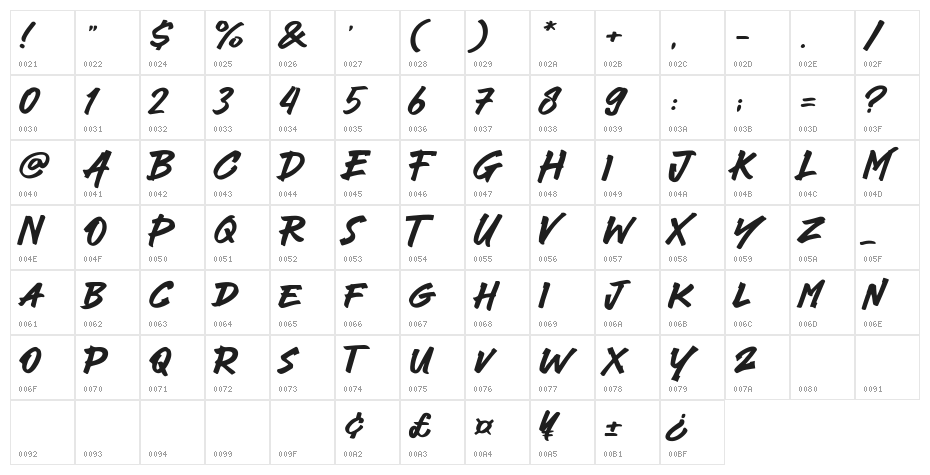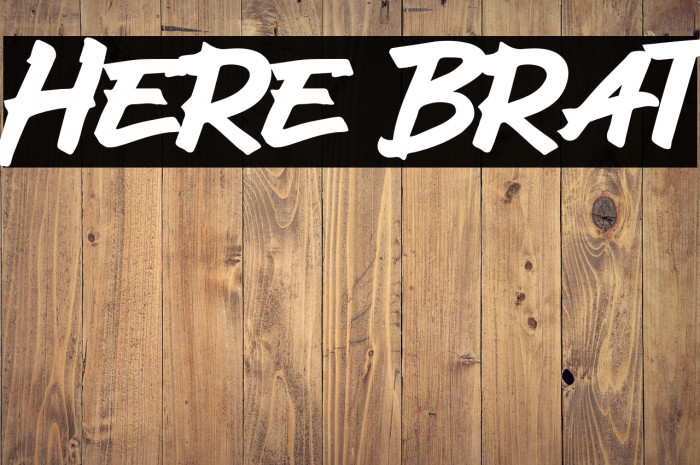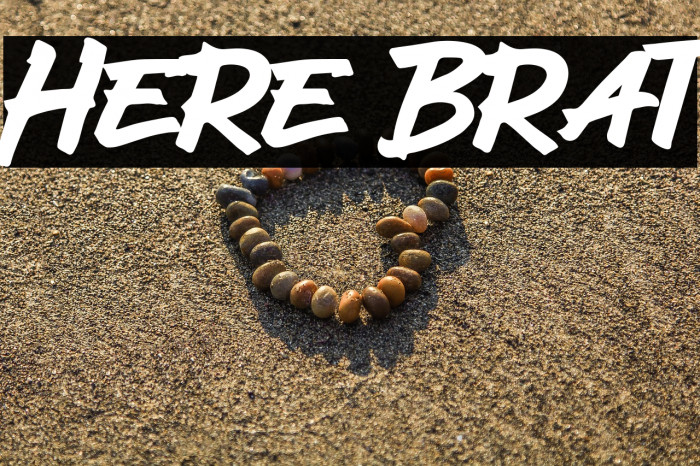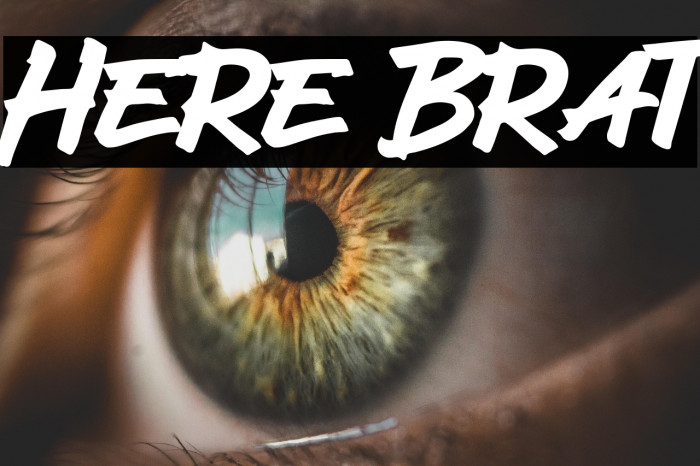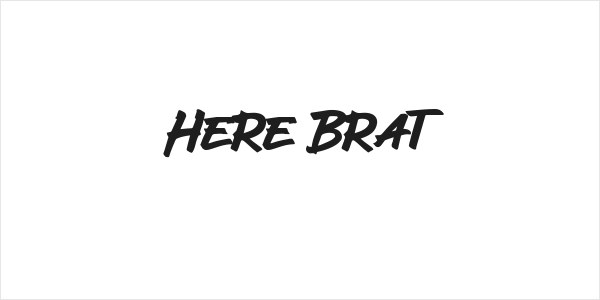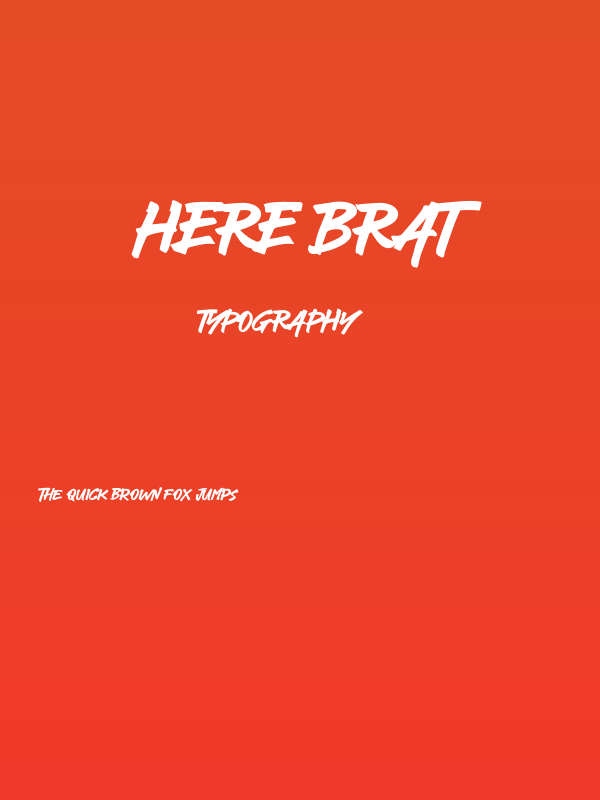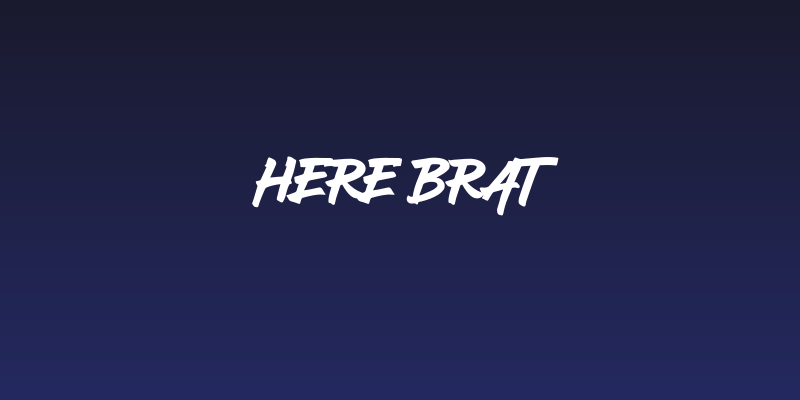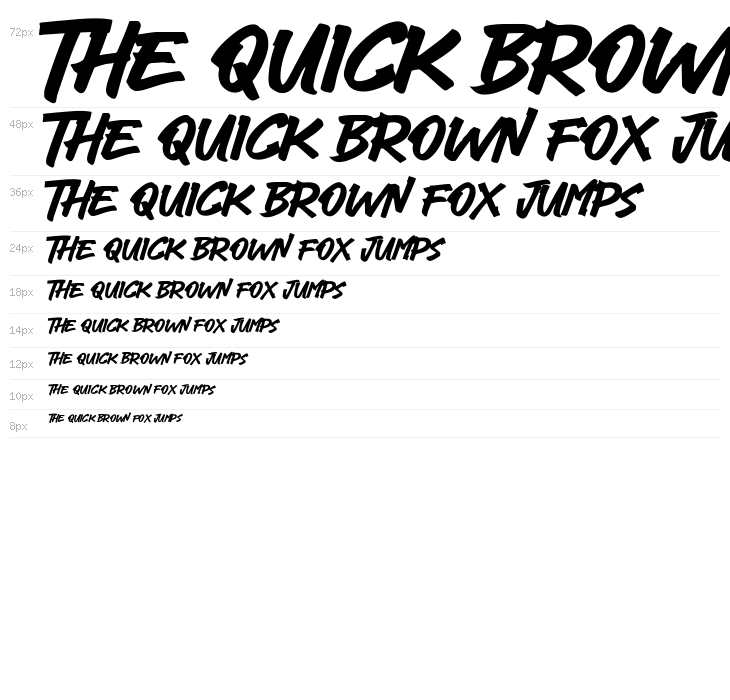
Here Brat Font
Here Brat Description
This font features a bold, energetic script style with a dynamic and expressive character. The letters are crafted with a brush-like appearance, giving them a sense of motion and flair. The uppercase and lowercase letters are consistent in style, with a slightly slanted orientation that adds to the font's lively nature. Numbers and special characters maintain the same bold and expressive quality, ensuring a cohesive look across all text. This font is ideal for projects that require a touch of personality and vibrancy.
| Proposed Projects | Ideal for branding, posters, headlines, and any design needing a dynamic and expressive touch. |